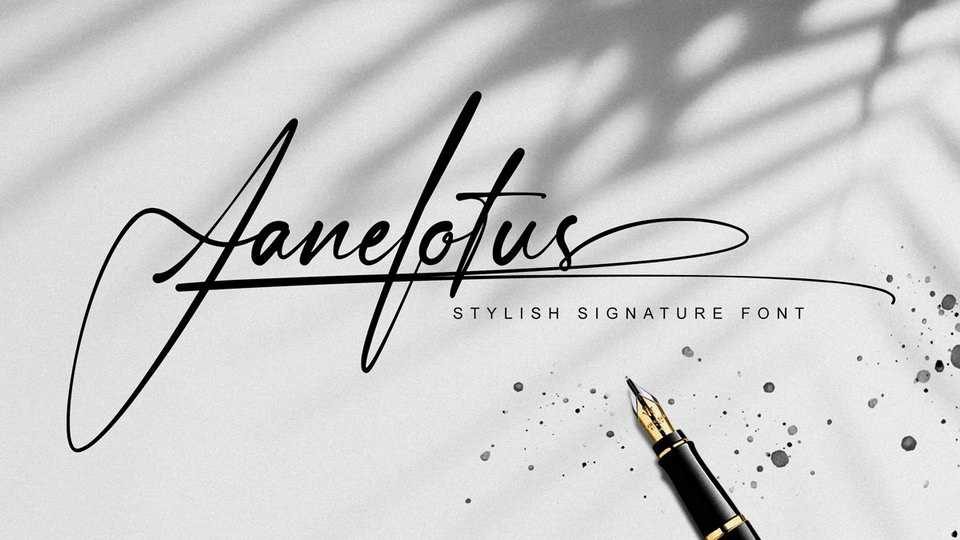
Download Janelotus font, a perfect signature typeface with a natural and stylish flow. Janelotus is perfect for many different project such as logos and branding, invitation, wedding designs, social media posts, magazines, photography watermark and more.